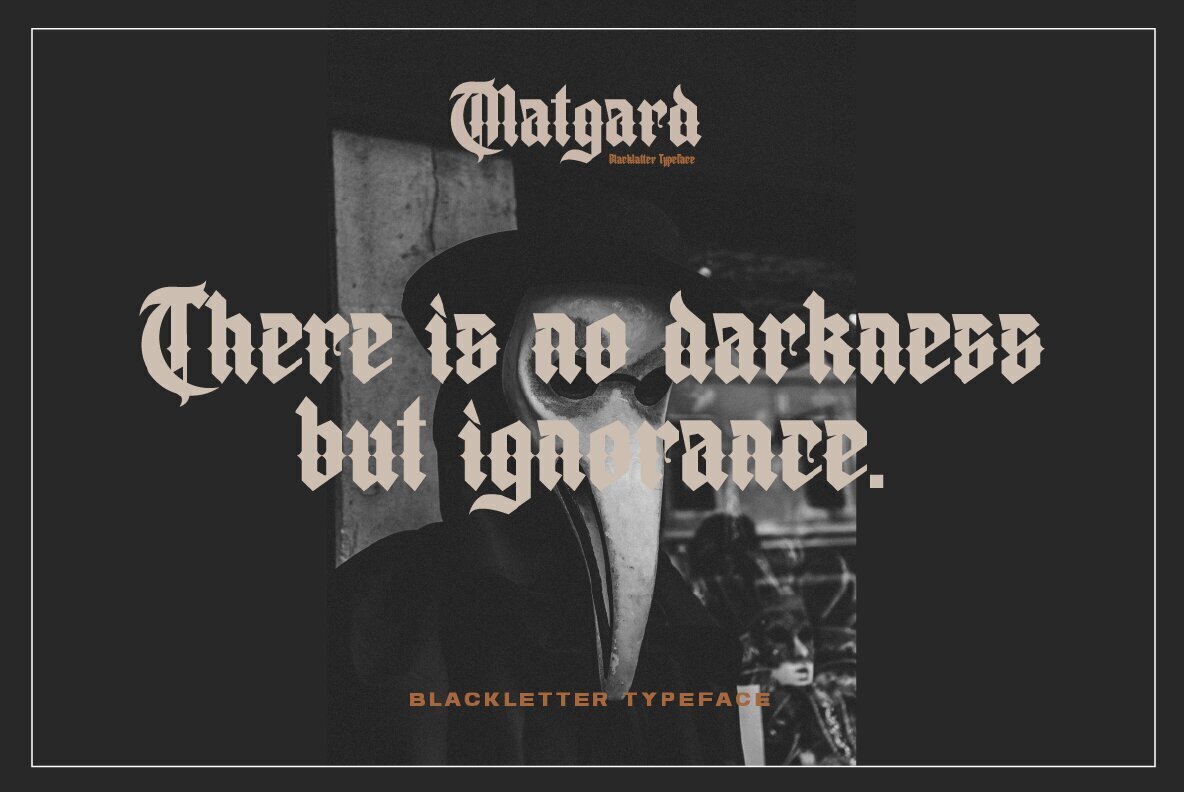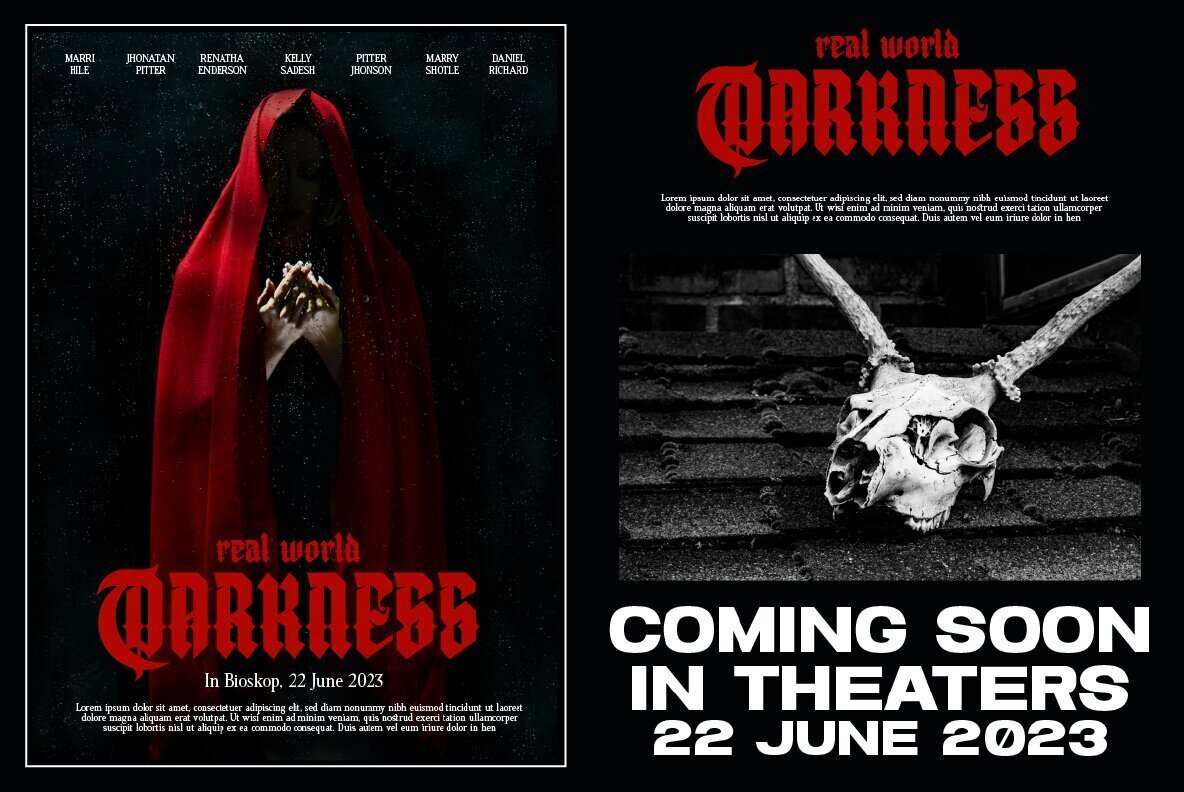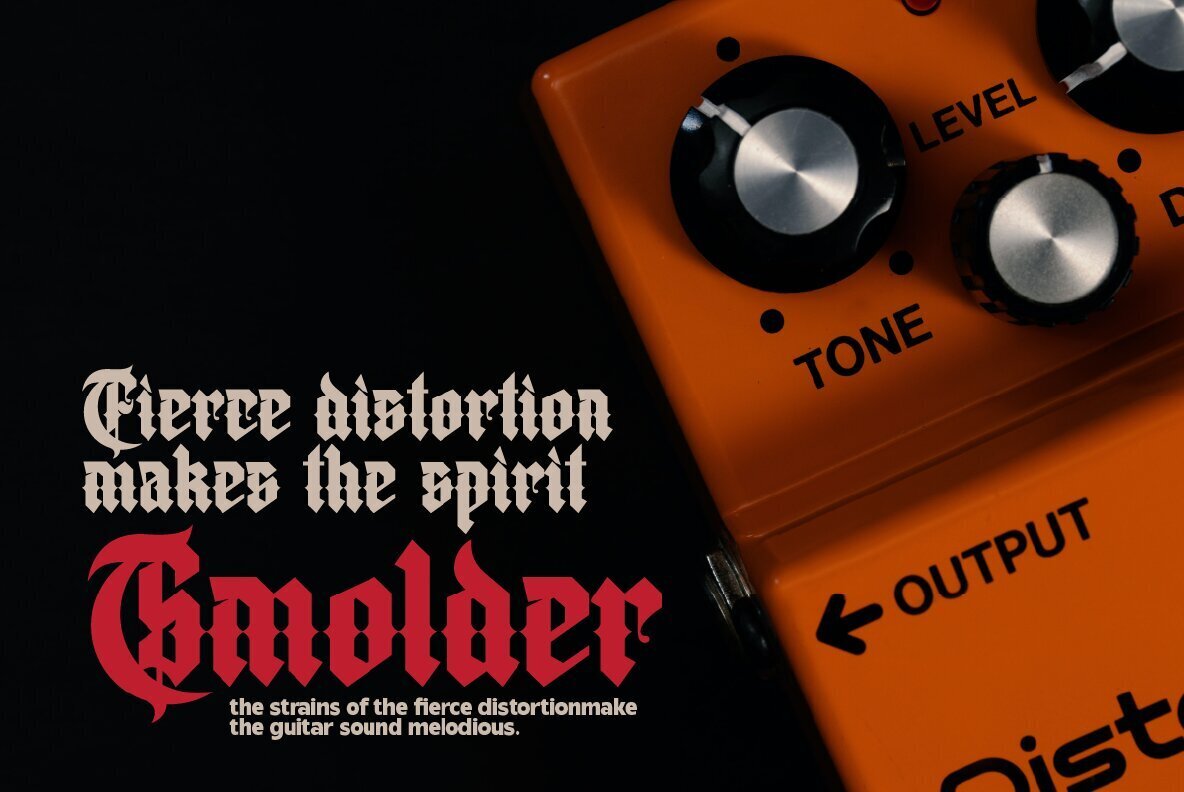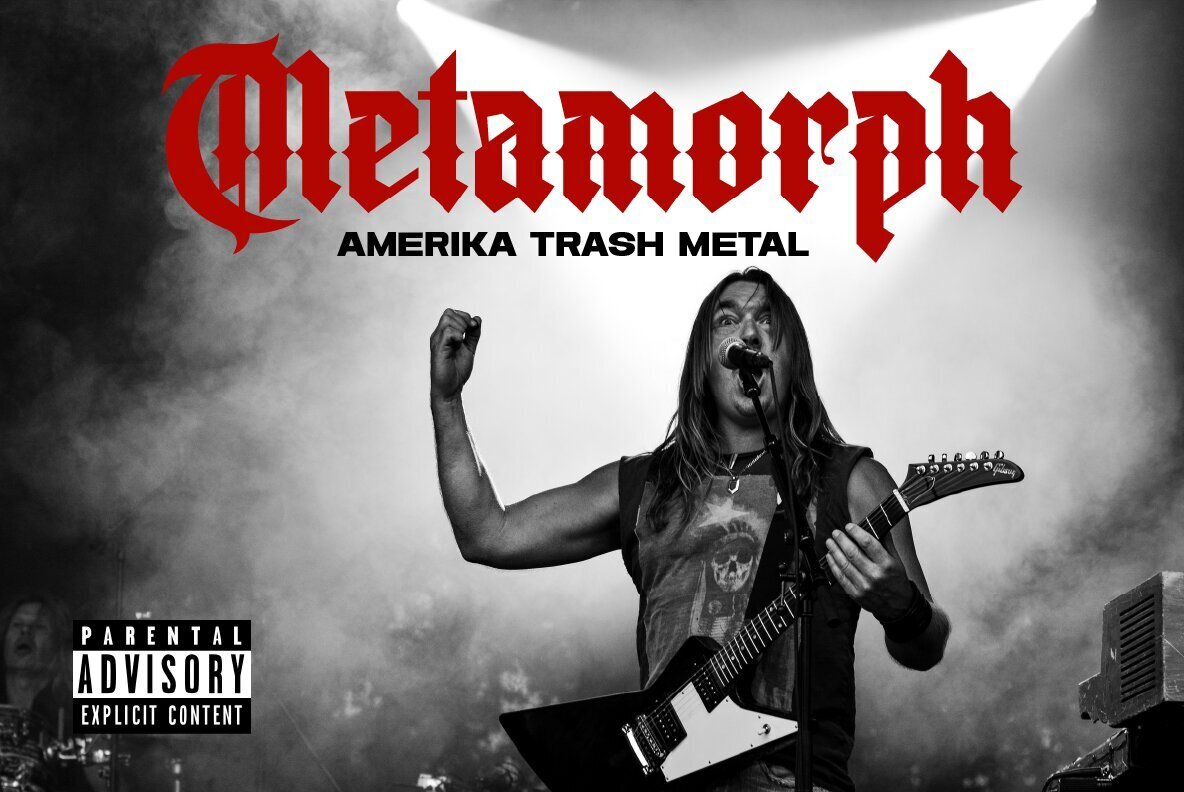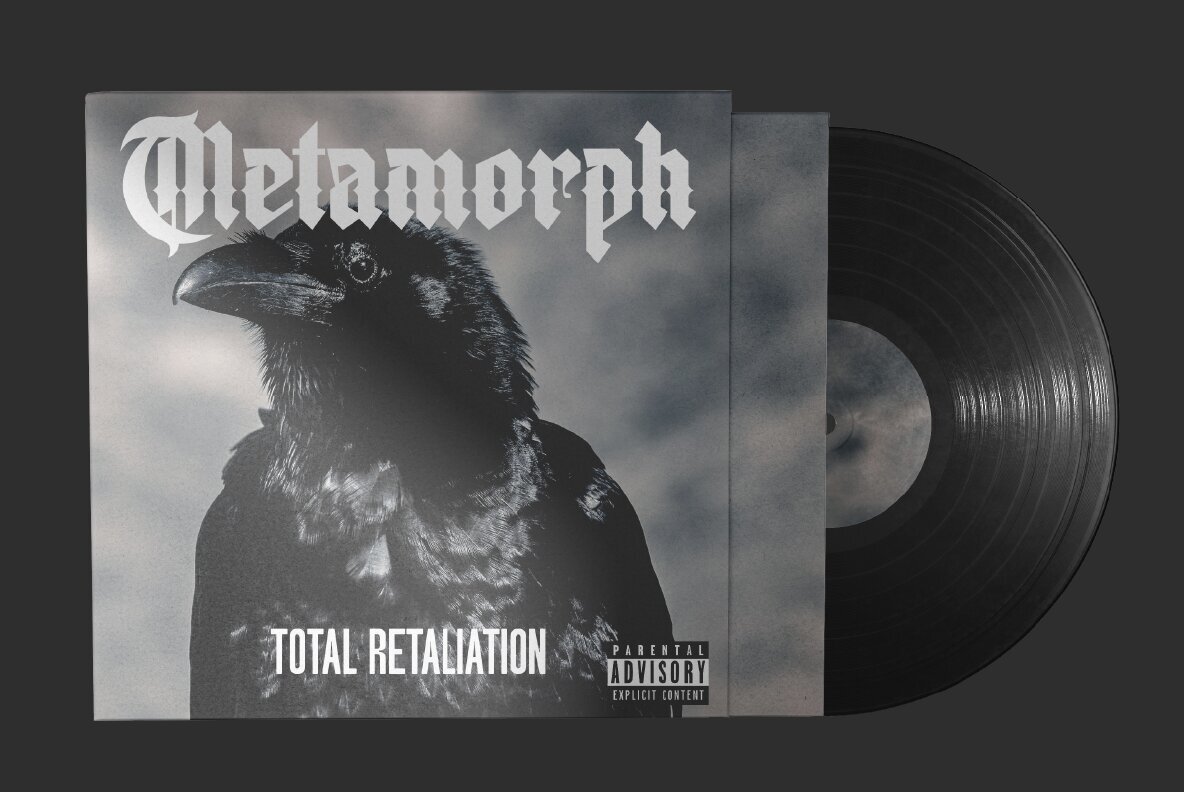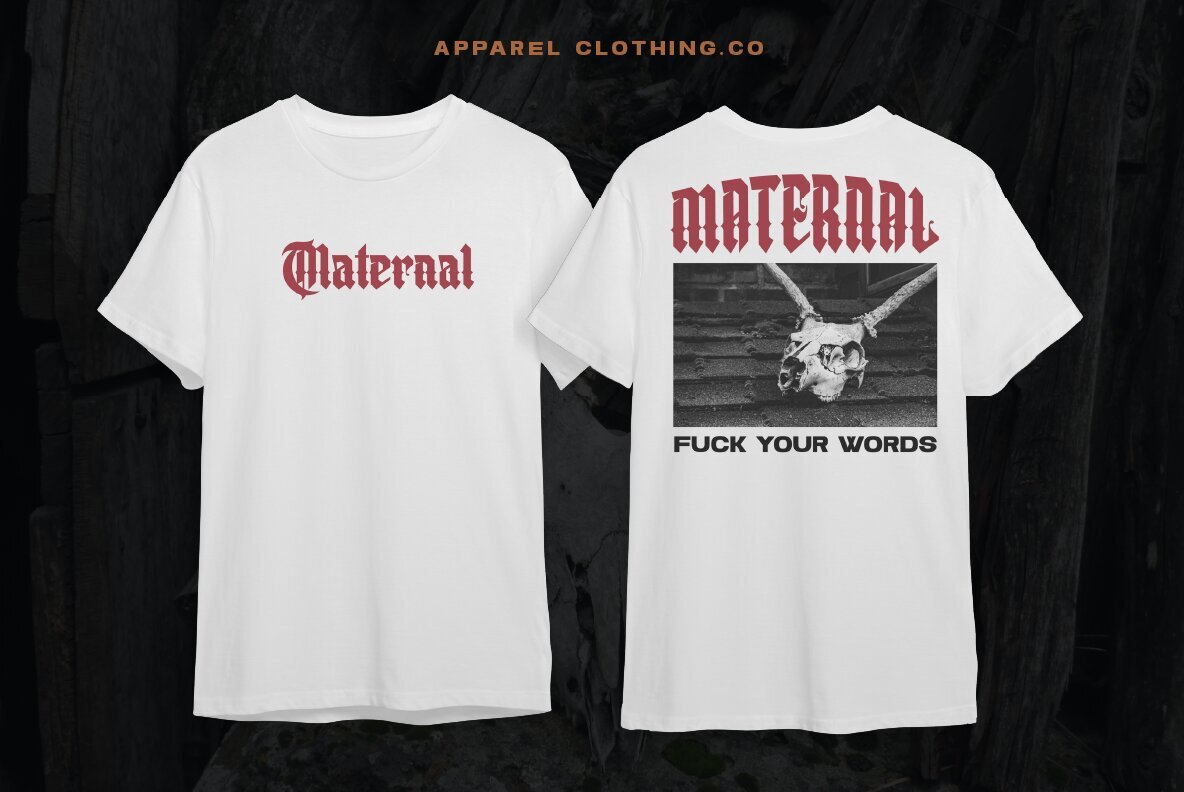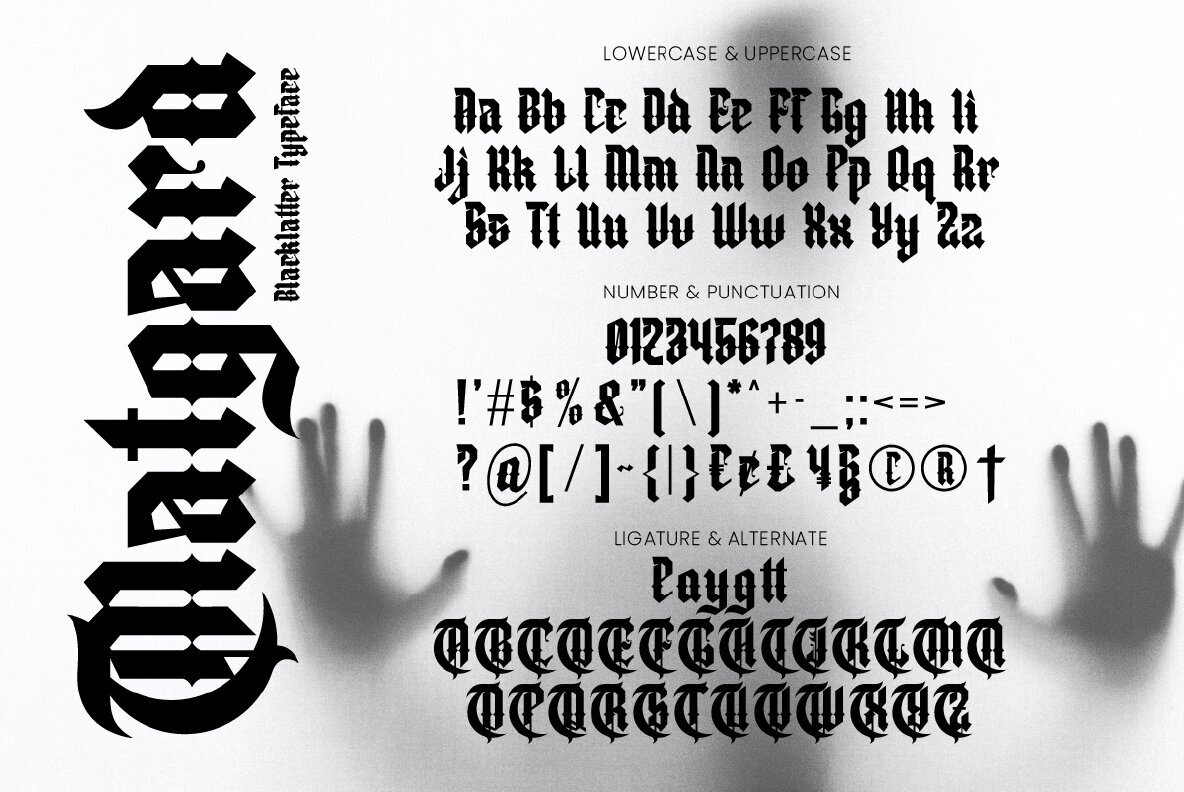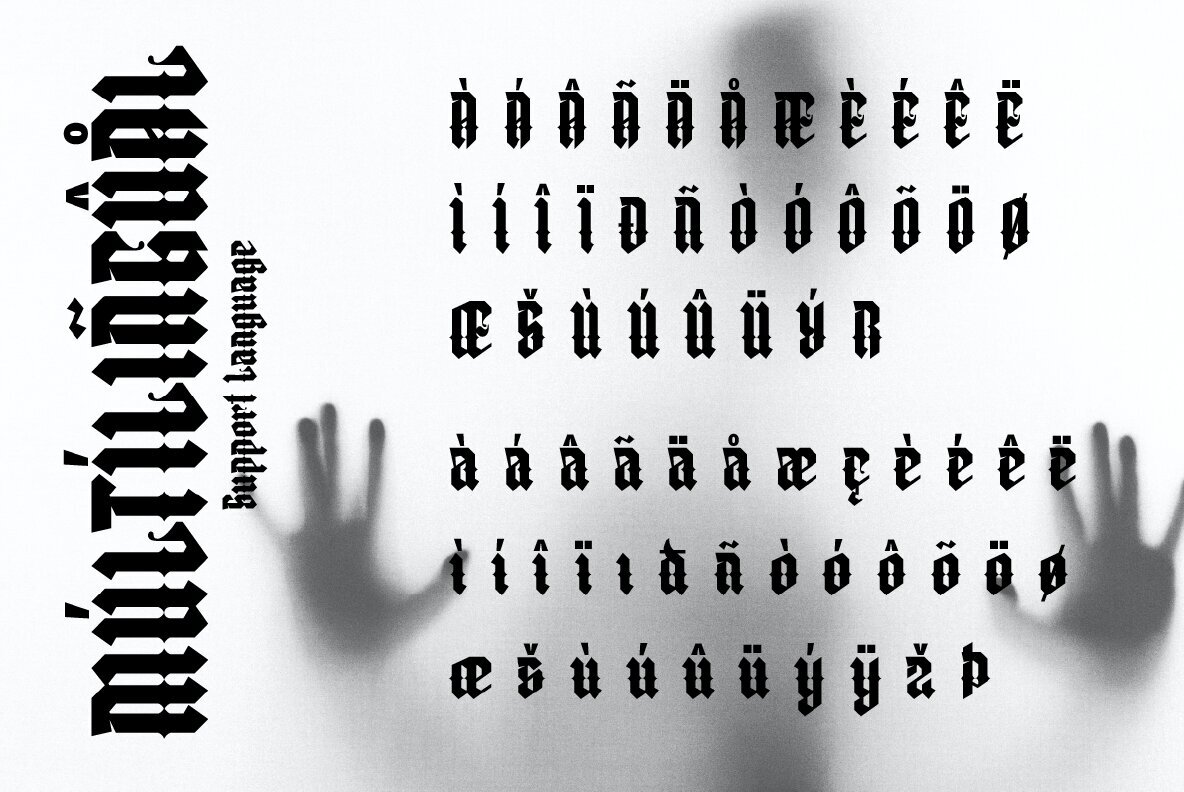
Matgard Font
Matgard is a modern, high-contrast blackletter typeface that will inspire you to create something unique and fresh. This font also comes with alternative characters so it's perfect for any project in need of some extra boldness.